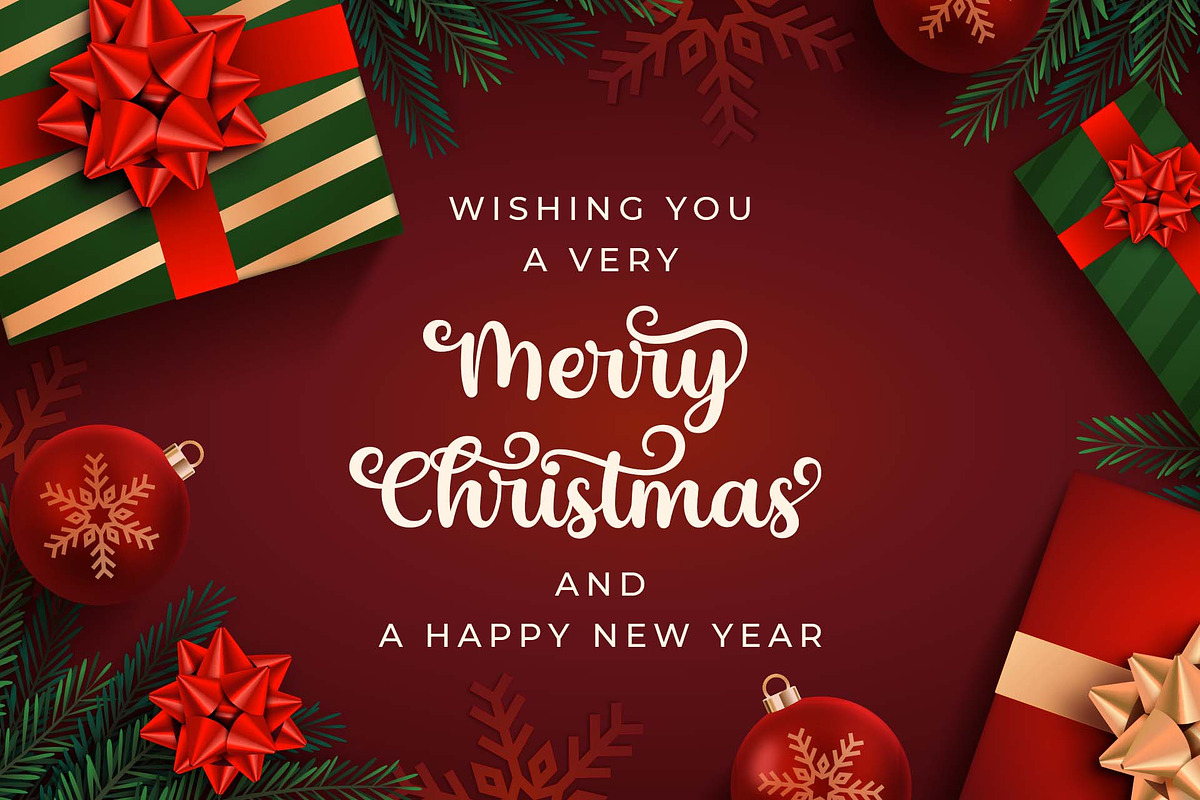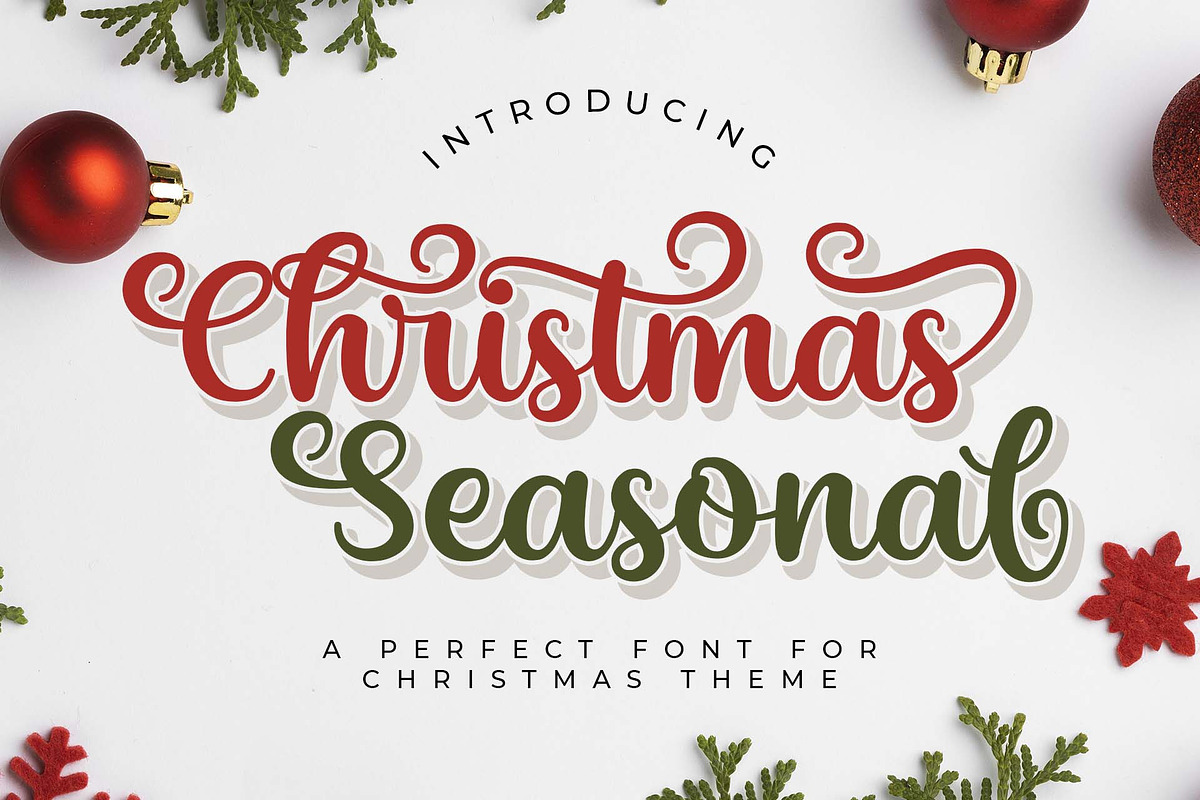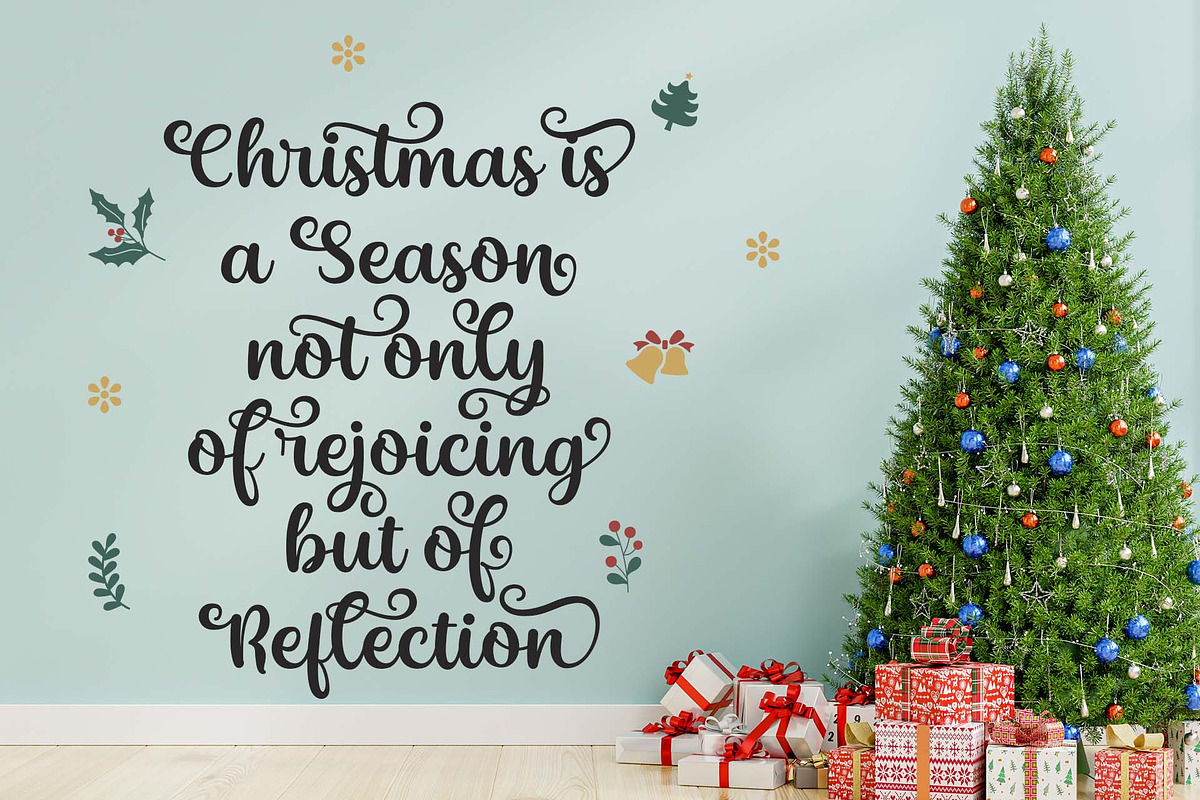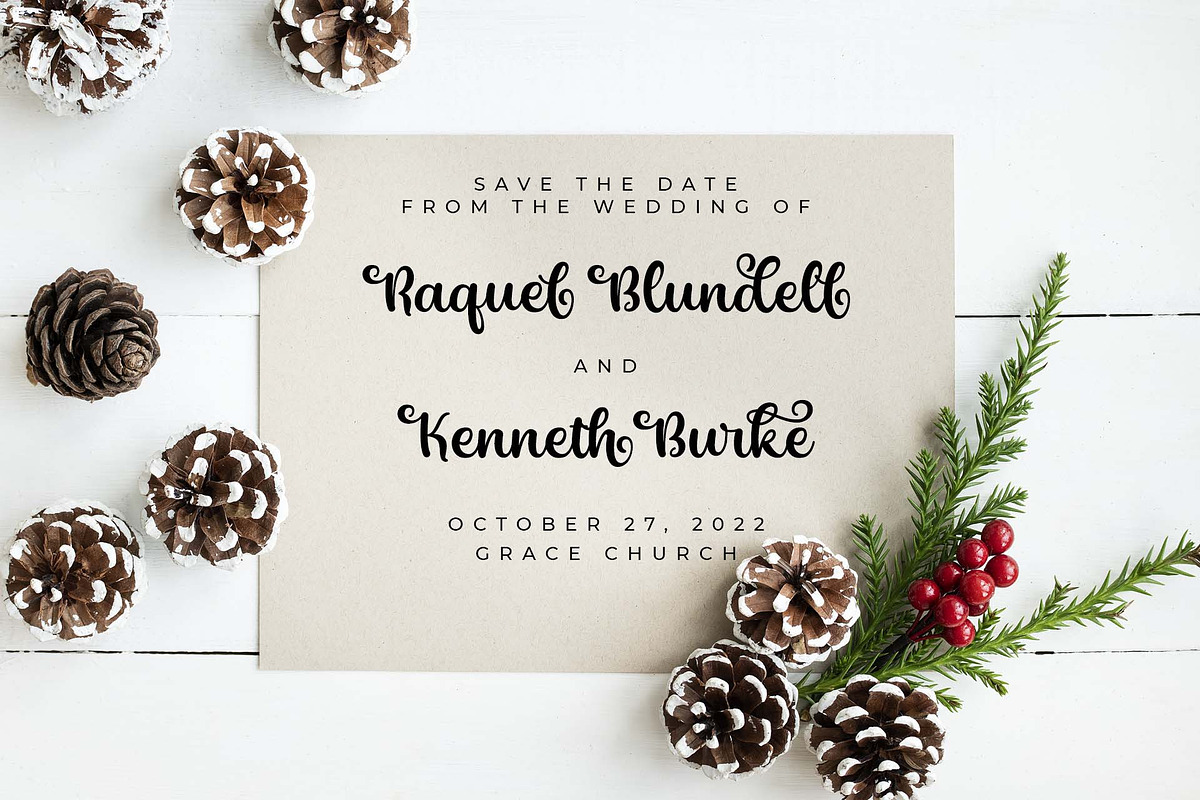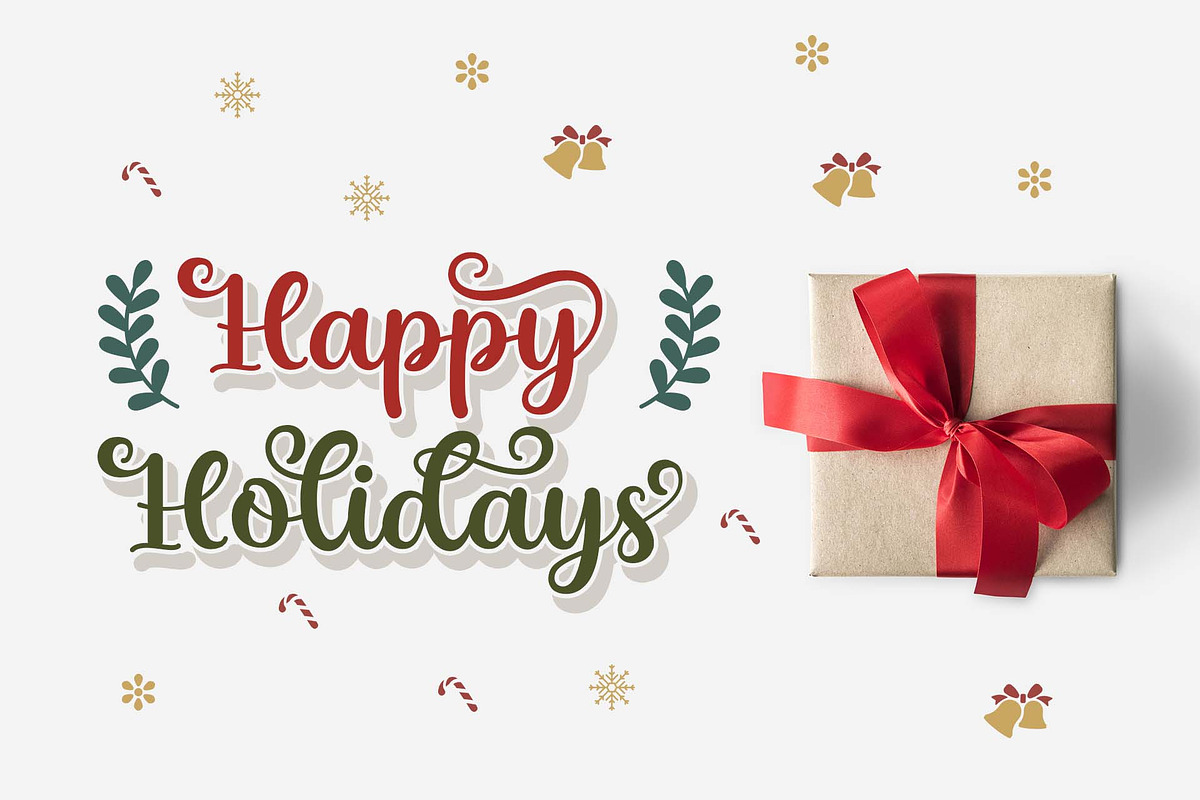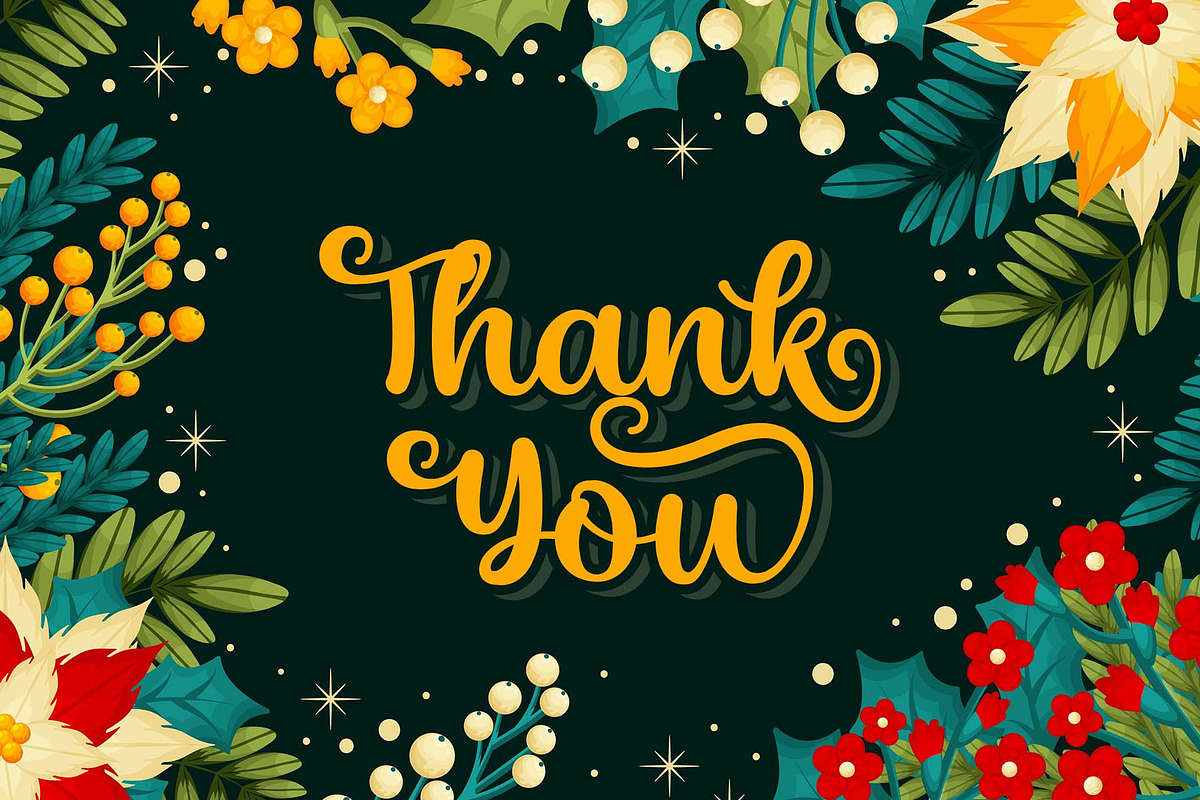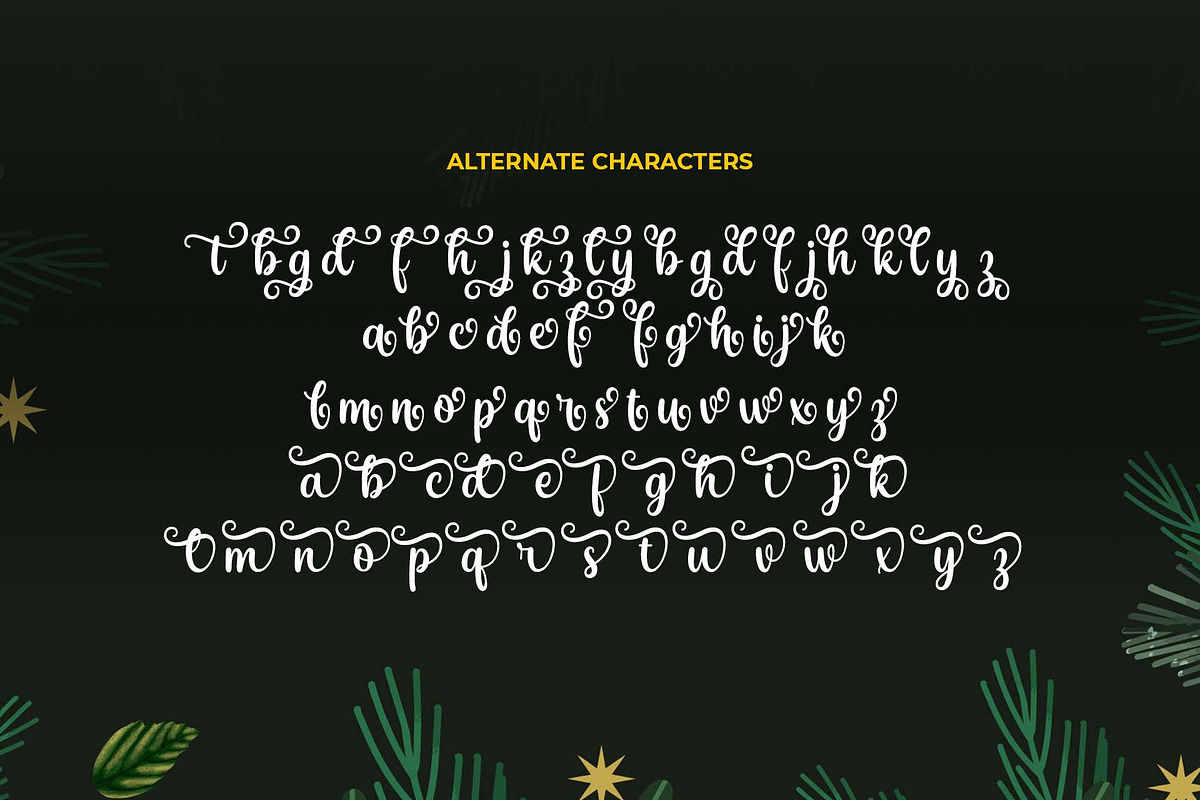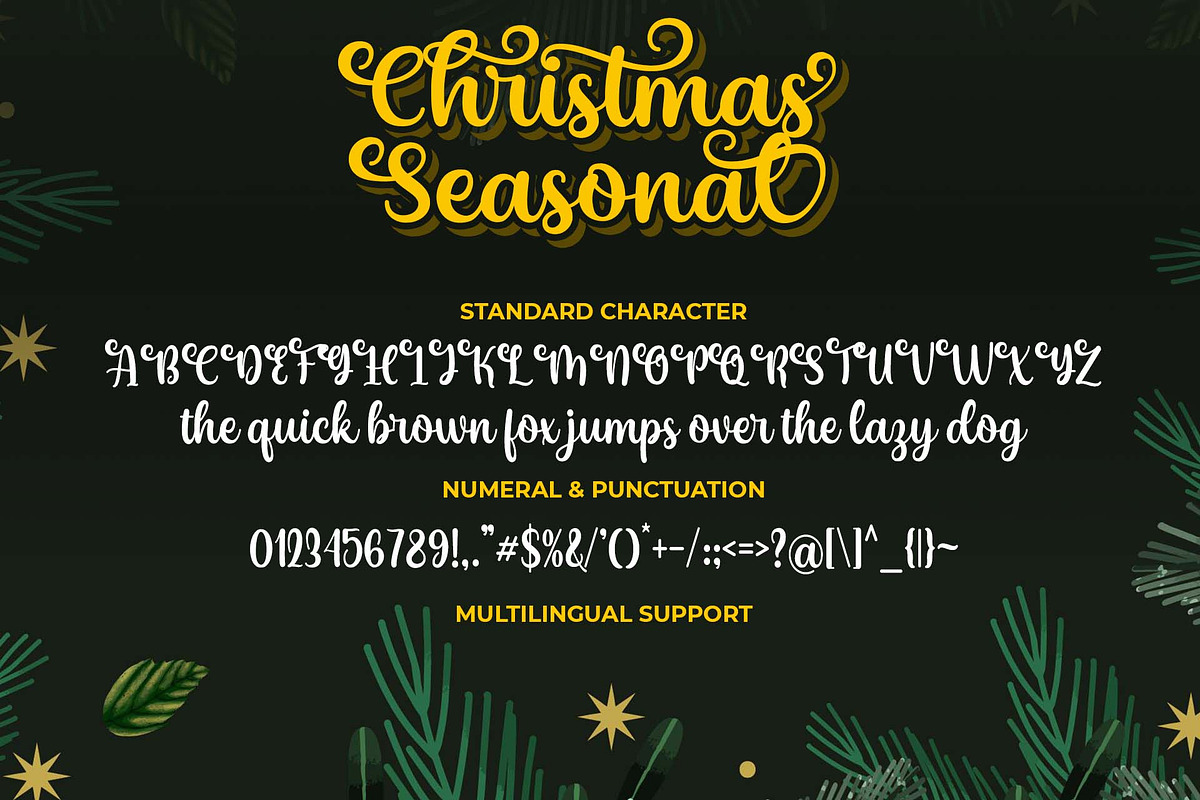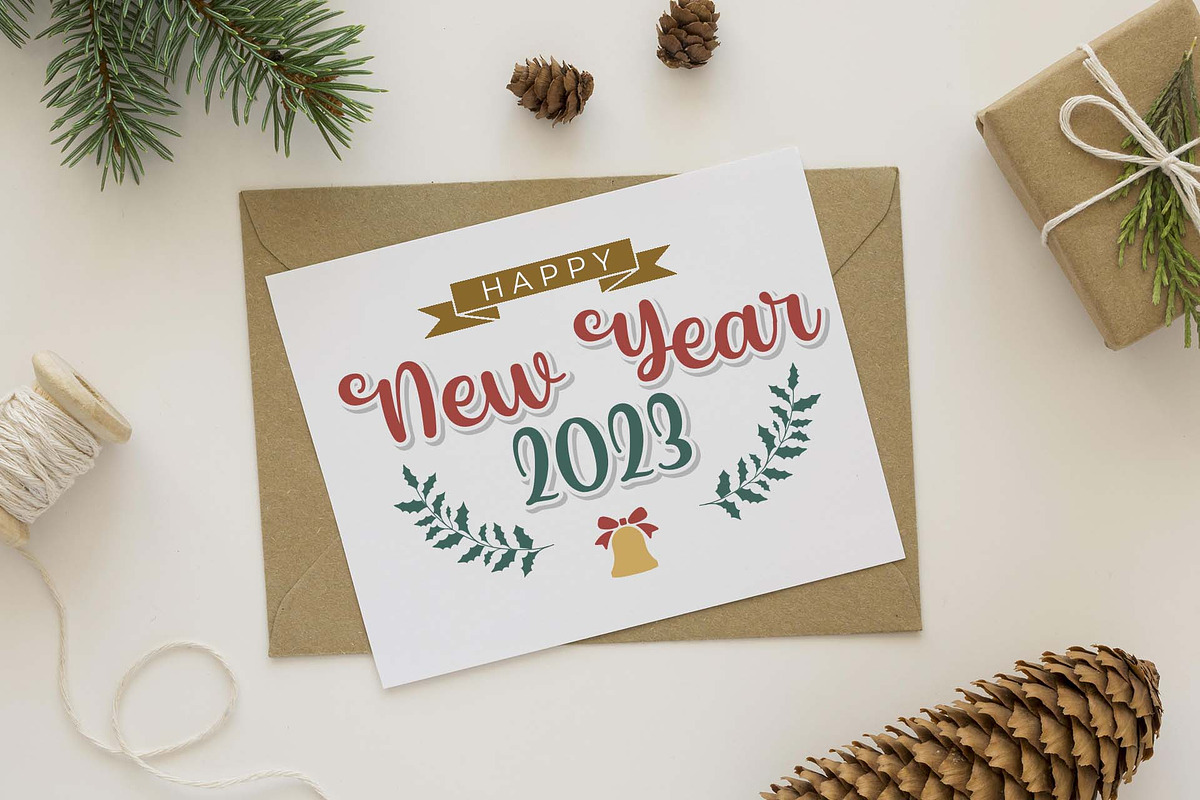
Christmas Seasonal
Christmas Seasonal is a beautiful and elegant script font with Christmas Theme. It has a classy, unique, and modern look that can be used for logos, branding, invitations, stationery, wedding designs, greetings card, social media posts, and much more! This font is PUA encoded, which means you can access all of the glyphs and swashes with ease.